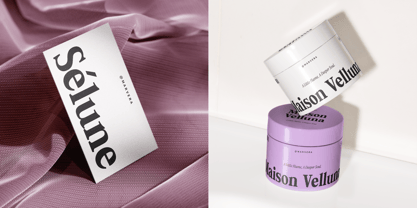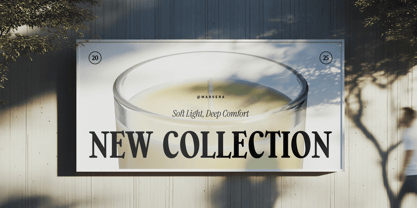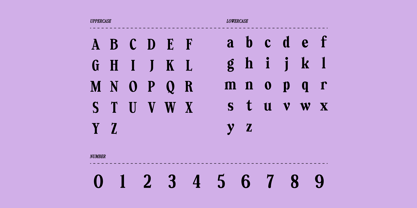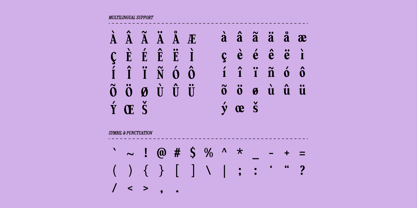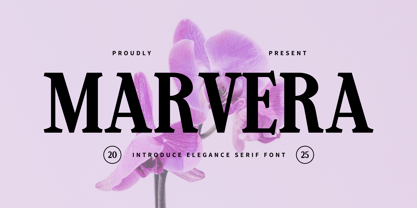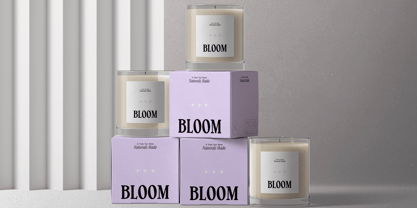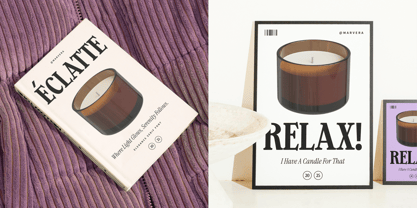
Marvera
by Slidehack
The Marvera Font Family was designed by Panca Hasan and published by Slidehack. Marvera contains 1 styles. More about this family
Marvera is a bold display serif font featuring playful curves and timeless vintage elegance. Designed to stand out, it works perfectly for logos, branding, posters, headlines, packaging, editorials, and social media visuals. With strong character, excellent readability, and a modern retro touch, Marvera enhances visual impact, attracts attention, and supports creative and commercial projects worldwide.
Designers: Panca Hasan
Foundry: Slidehack